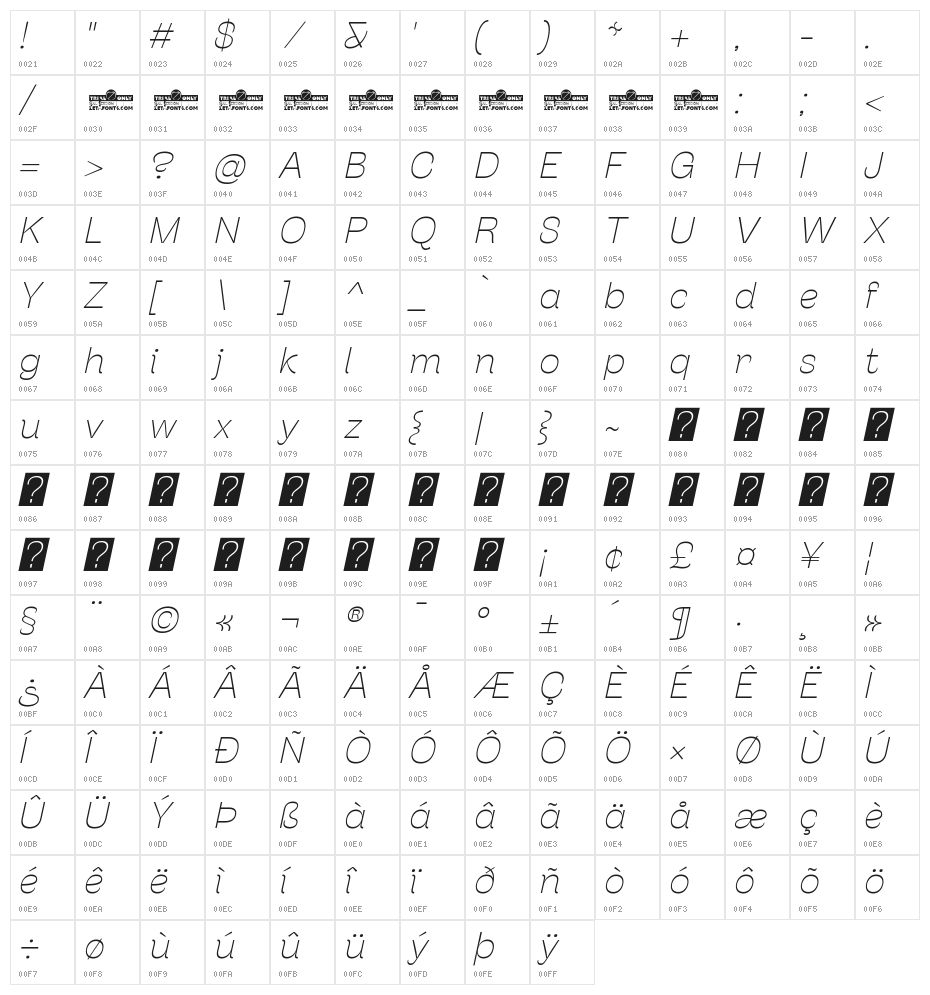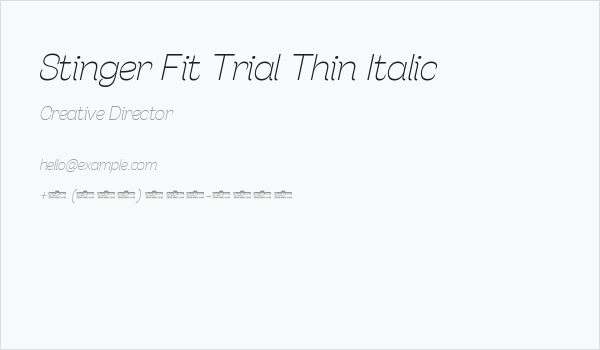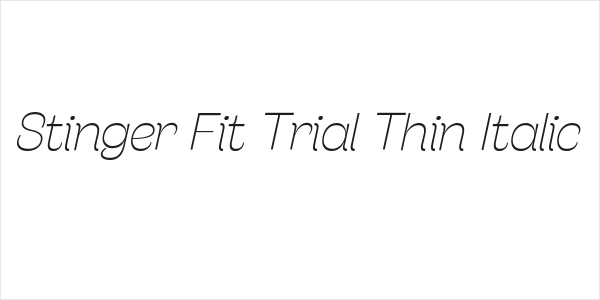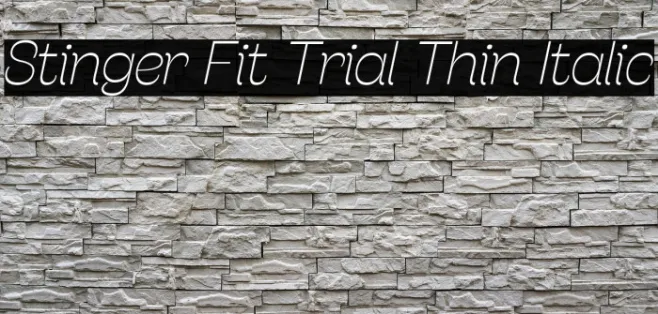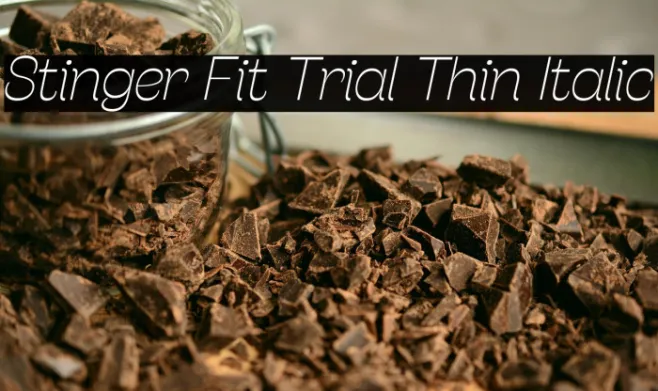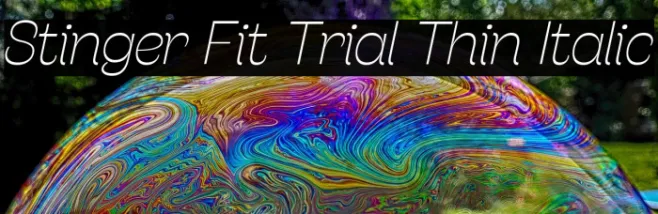
Stinger Fit Trial Thin Italic Font
Stinger Fit Trial Thin Italic Description
This font features a sleek and modern design with a thin, elegant stroke that gives it a refined and sophisticated appearance. The italic style adds a dynamic and fluid feel, making it suitable for contemporary design projects. The characters are well-proportioned, with a slight slant that enhances readability while maintaining a stylish aesthetic. The font includes a full set of uppercase and lowercase letters, numbers, and a variety of special characters, providing versatility for various design needs. Its clean lines and minimalist approach make it ideal for projects that require a touch of elegance and modernity.
| Proposed Projects | Ideal for fashion magazines, luxury branding, modern websites, and elegant invitations. |